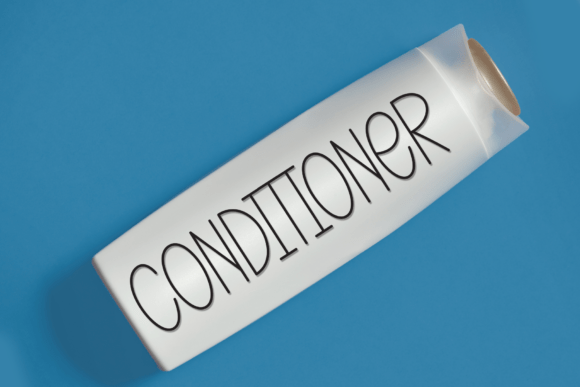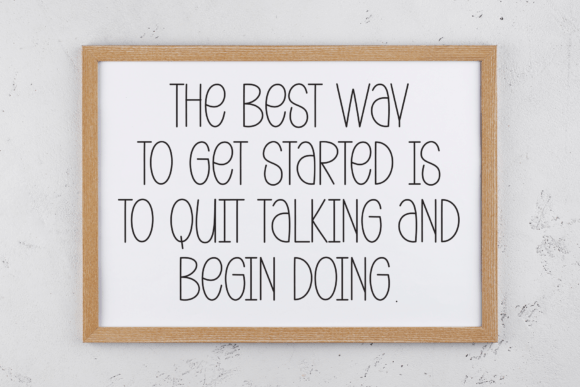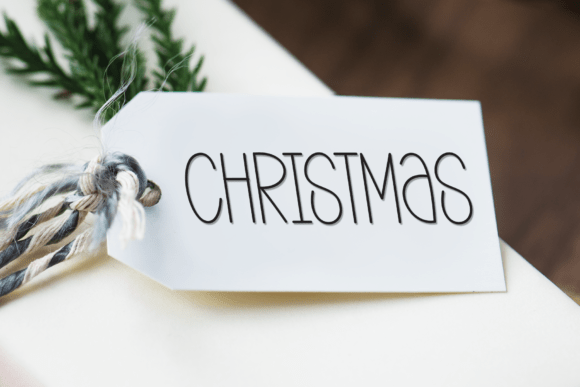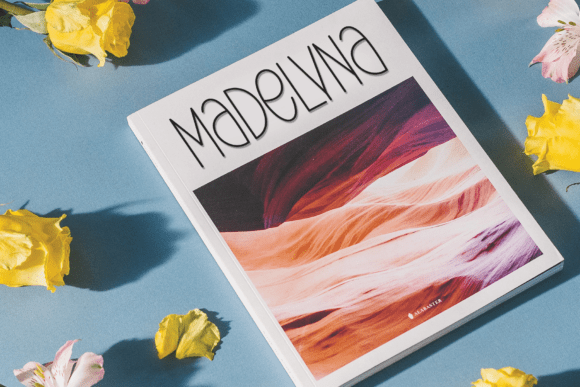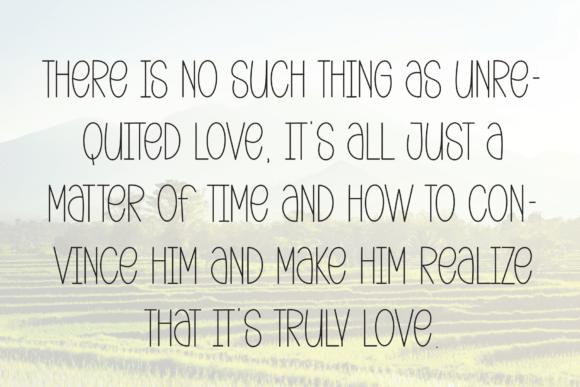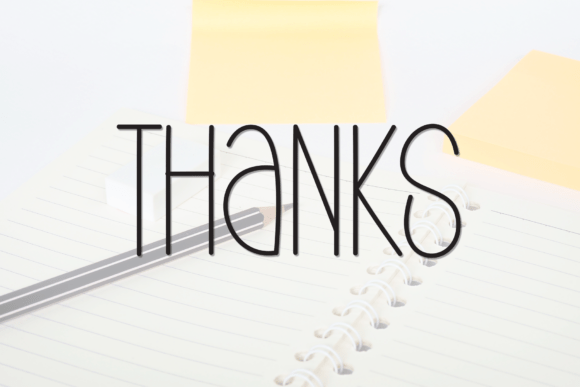
Introduction to Letter Planner Font
Master the art of organization with the Letter Planner font, a slim and exceptionally clean handwritten typeface designed for those who value modern minimalism.
This Letter Planner typeface features tall, narrow characters and an organic flow that mimics the precise look of fine-liner penmanship in a high-end daily planner It is the ultimate choice for digital planning stickers, bullet journal layouts, and minimalist social media quotes that require a light, airy aesthetic.
Key Features of Letter Planner Font
Why Choose Letter Planner Font?
Letter Planner Font offers exceptional quality and versatility, making it a valuable addition to your design toolkit. Whether you’re creating for personal projects or commercial use, Letter Planner Font delivers professional results.